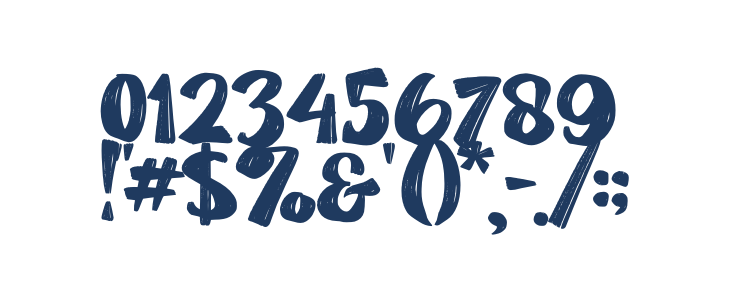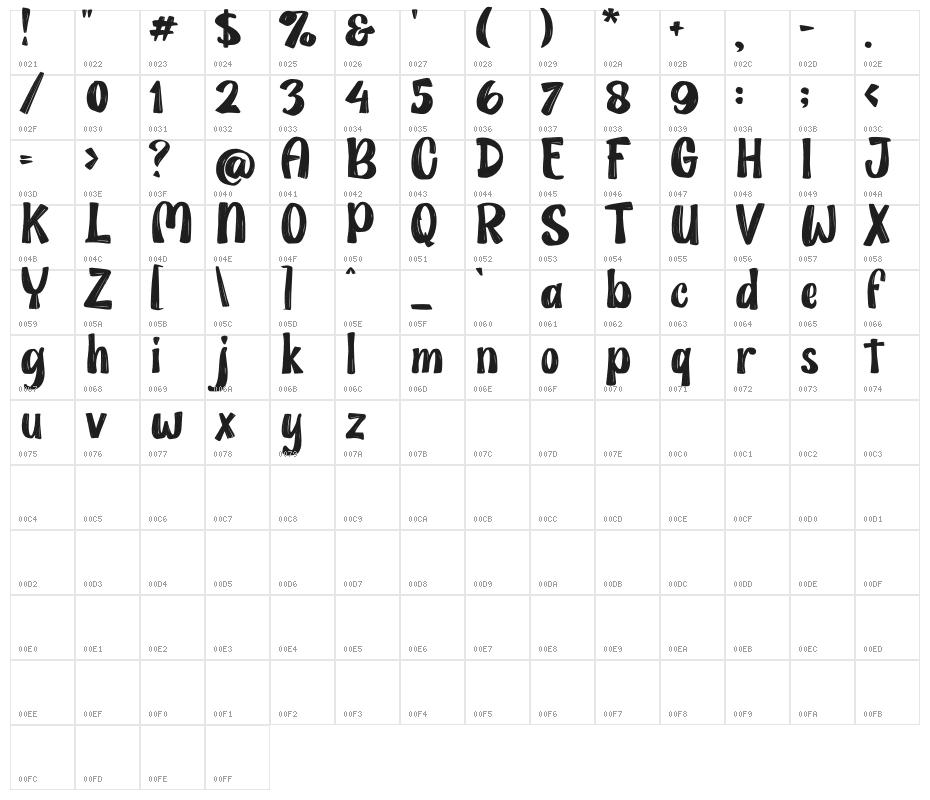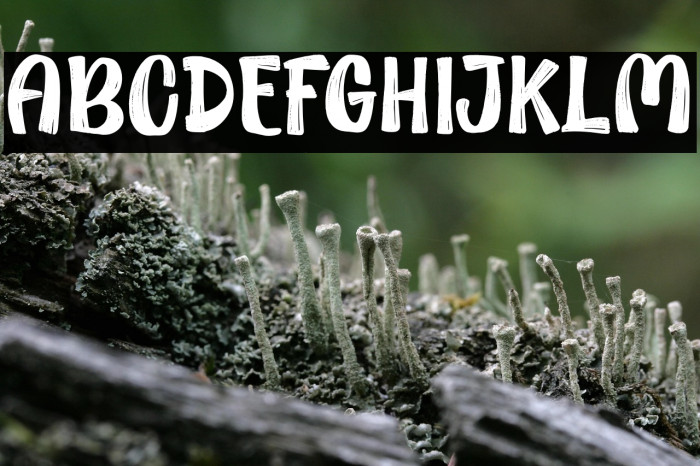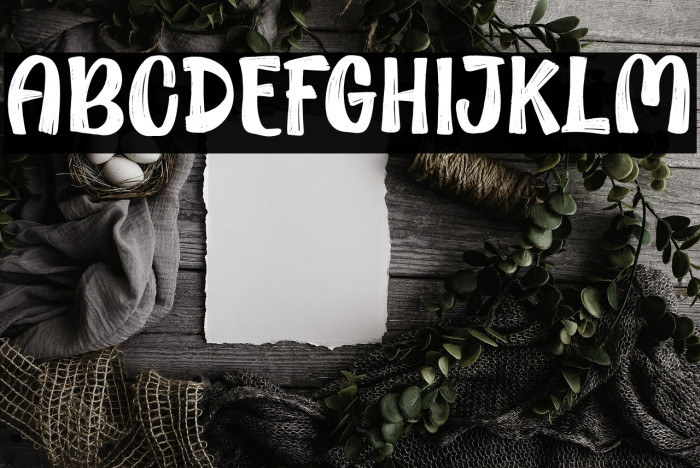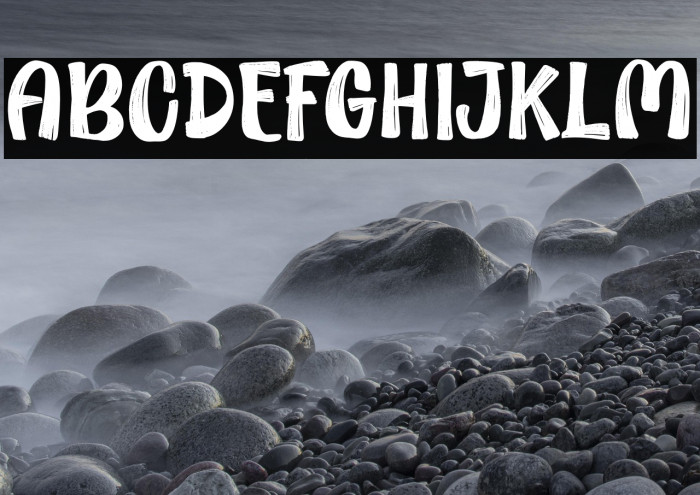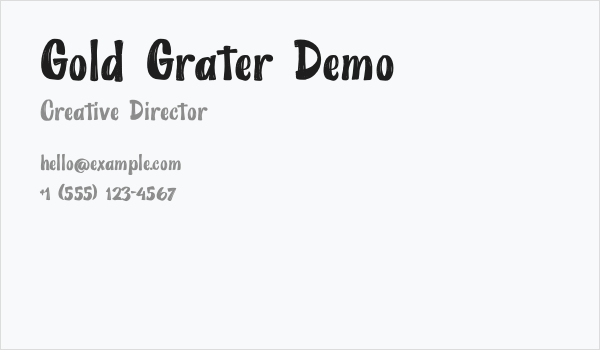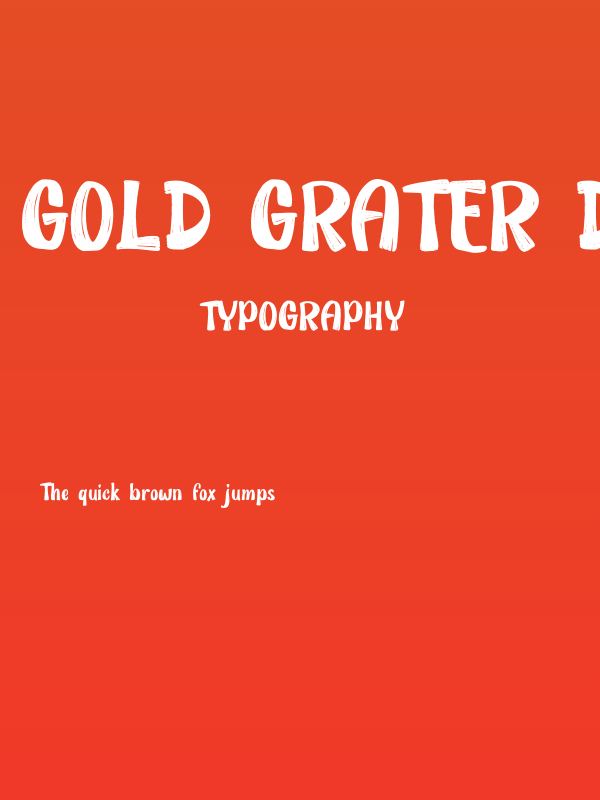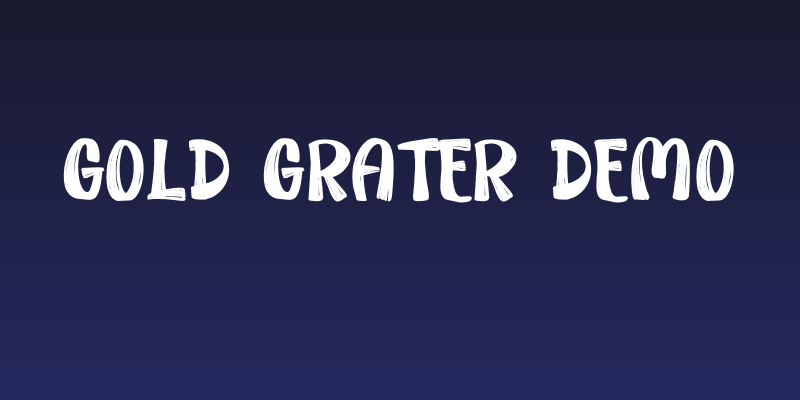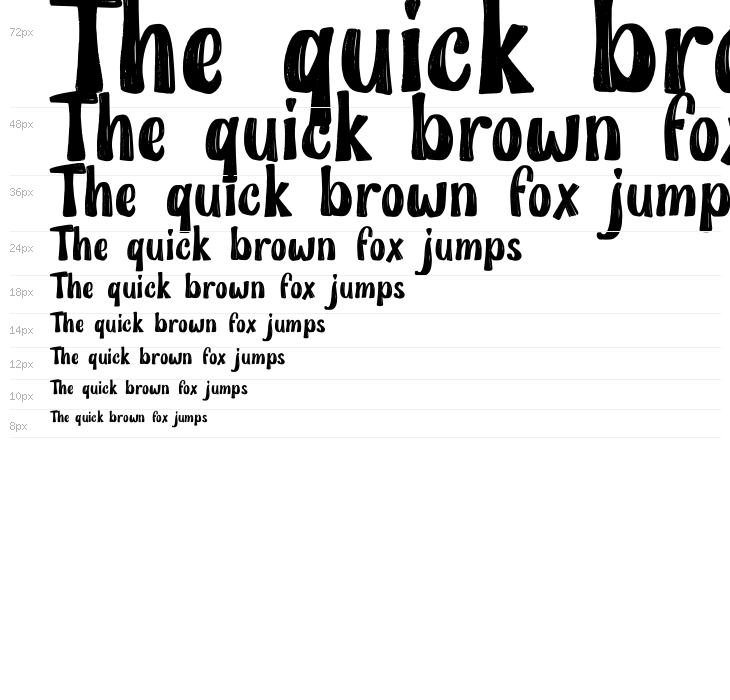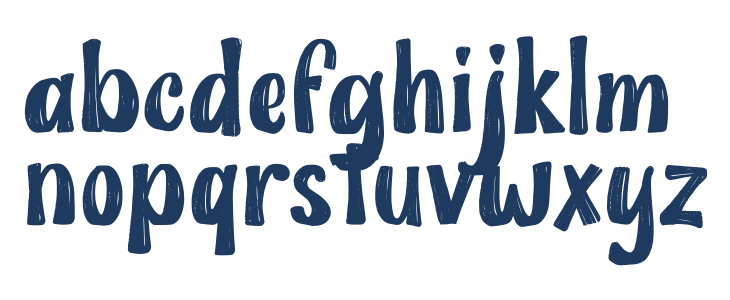
Gold Grater Demo Font
Gold Grater Demo Description
This font features a bold and expressive style with a hand-painted appearance. The characters are thick and slightly irregular, giving them a dynamic and energetic feel. The strokes are broad with a brush-like texture, adding a sense of movement and artistic flair. The uppercase and lowercase letters maintain a consistent style, with rounded edges and a playful, informal look. The numbers and special characters follow the same design, ensuring a cohesive appearance across all elements. This font is ideal for projects that require a bold and creative touch, such as posters, headlines, and branding materials.
| Proposed Projects | Perfect for posters, headlines, branding, and creative design projects. |